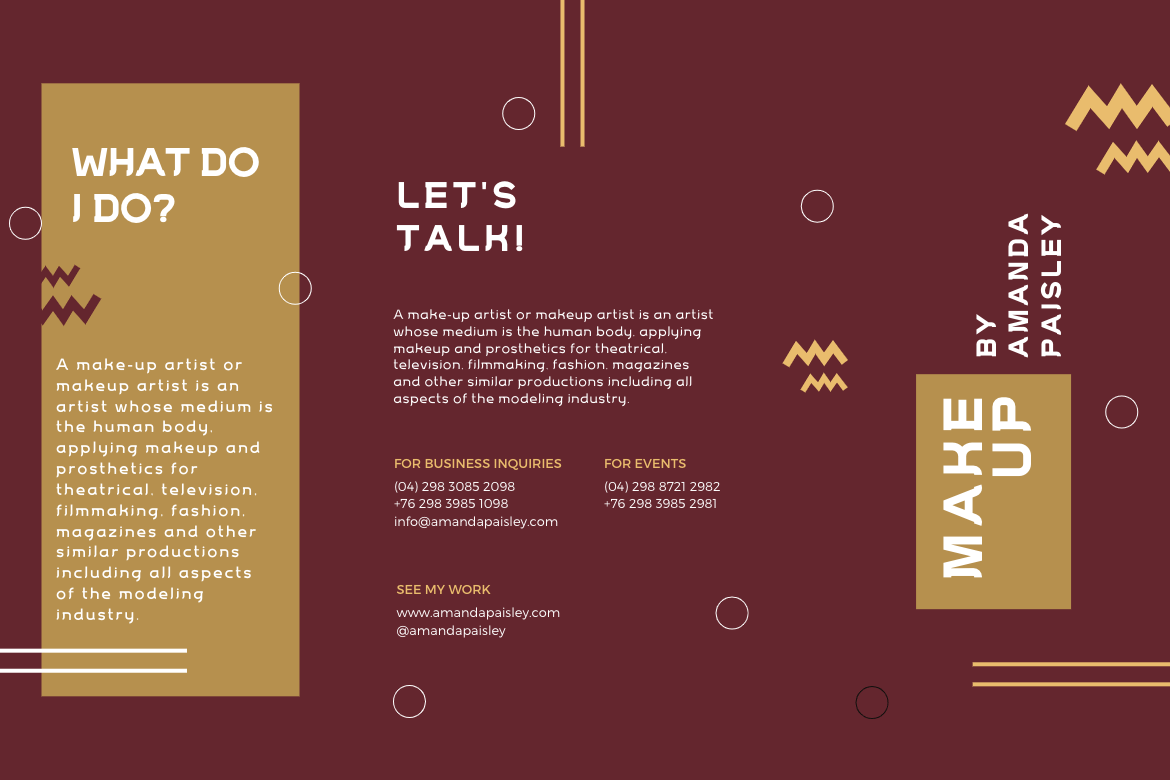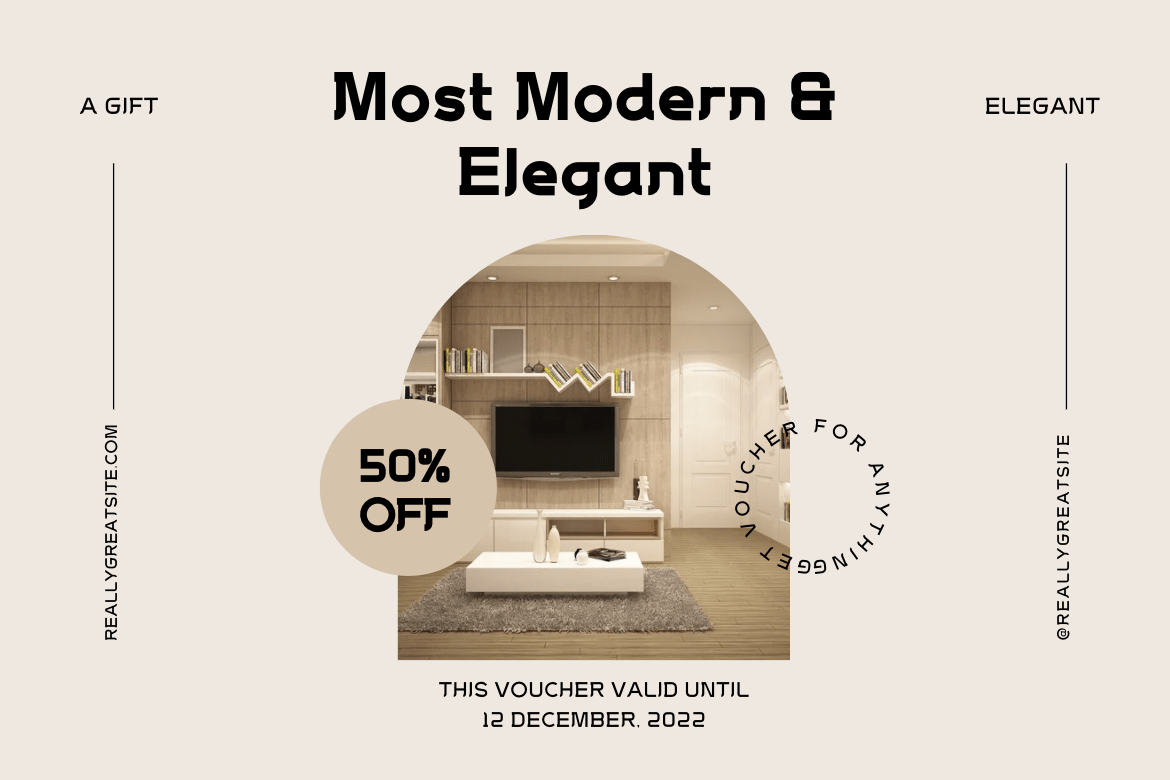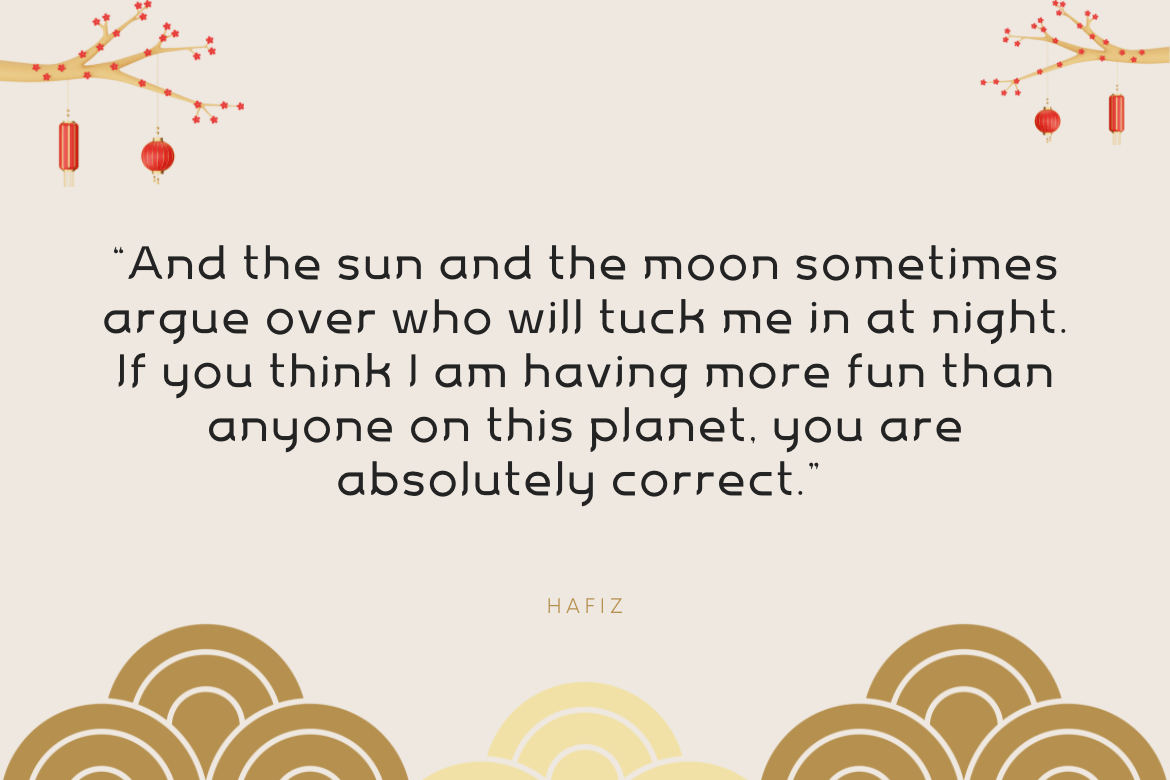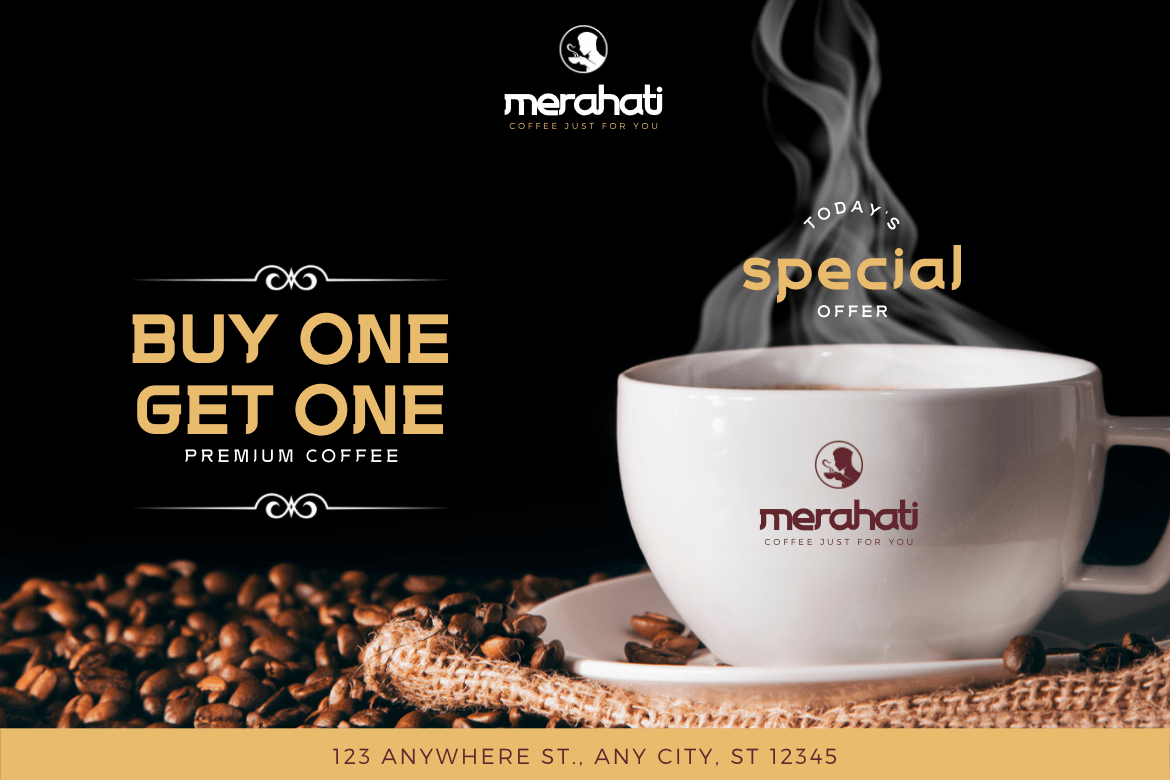
Mantrap Display Font
It’s a basic sans serif typeface made specifically for those of you who want your project to be seen by a large number of people, fascinate the audience, and win the camp. Your design project will be unique, appealing, and charming if you use this font in it. Because each anatomical shape of this font has been adjusted so that when combined, it can offer a varied impression while being easy to read, the audience that sees it will be captivated and grasp the content of the message you want to express to all audiences.
of course, your various design projects will be perfect and extraordinary if you use this font because this font is equipped with a font family, both for titles and subtitles and sentence text, start using our fonts for your extraordinary projects.